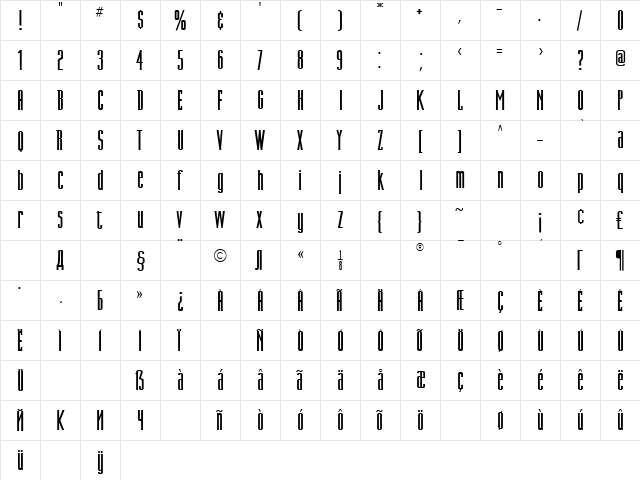
DN Titling Regular
Design Context for DN Titling Typeface
DN Titling is a composed and adaptable typeface that performs quietly and consistently across a wide range of design contexts.